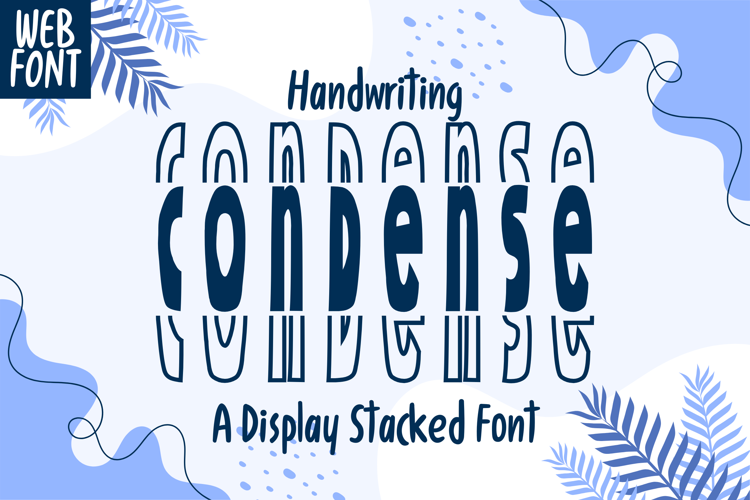
Handwriting Condense Stacked Font
The Handwriting Condense Stacked Font is a sleek, modern handwritten typeface with a tall, narrow form that stacks beautifully in tight layouts. Designed to bring a casual yet structured feel to your designs, this font is perfect for quotes, packaging, social media posts, branding, and editorial layouts.
With its condensed and vertically stacked style, it allows for clean space management while maintaining a handwritten charm. Whether you're working on minimal designs or playful graphics, this font offers great visual rhythm and character.
• Condensed and Stacked Letterforms – Perfect for vertical or tight-space layouts.
• Modern Handwritten Style – Adds personality without sacrificing readability.
• Perfect for Branding & Social Media – Ideal for modern, lifestyle-focused projects.
• Uppercase & Lowercase – Includes full A–Z alphabet.
• Numbers & Punctuation – Designed to match the style and keep consistency.
• Multilingual Support – Supports a wide range of languages.